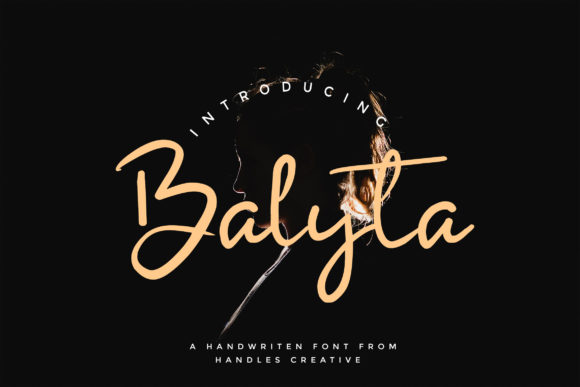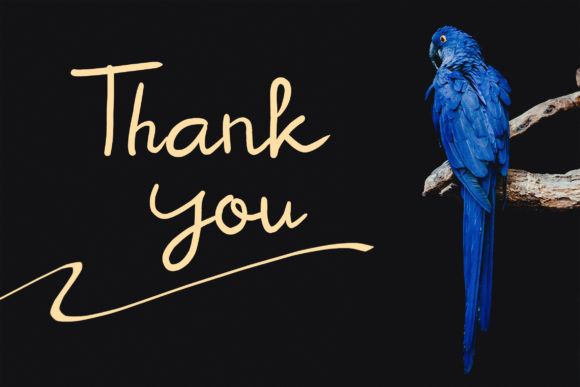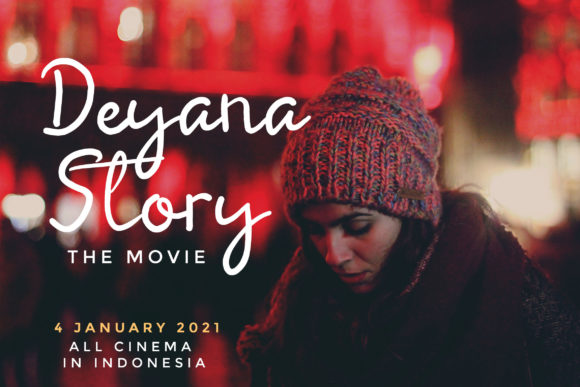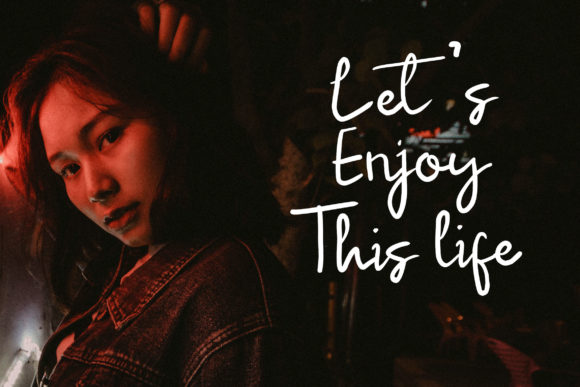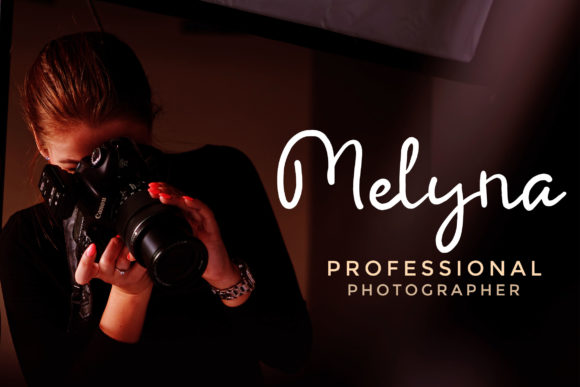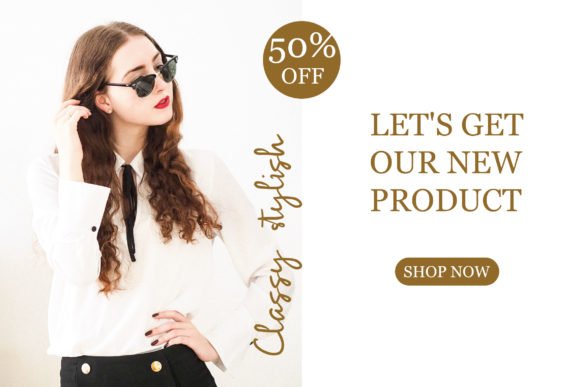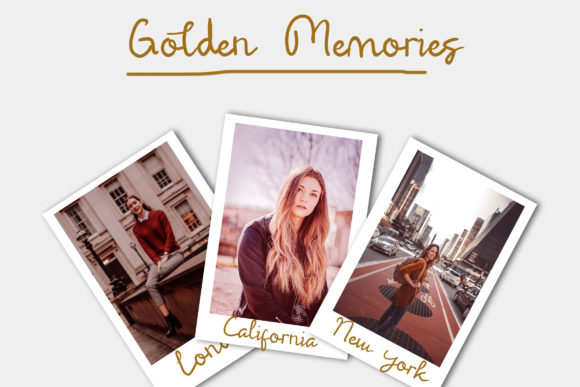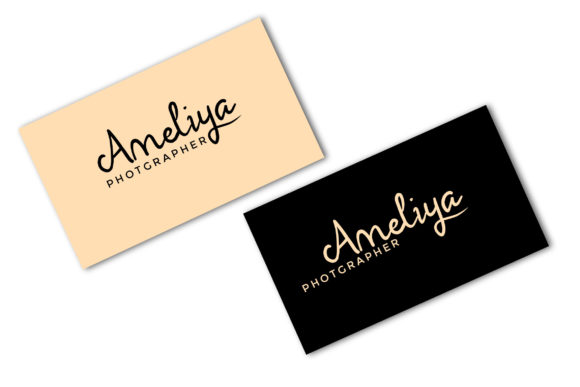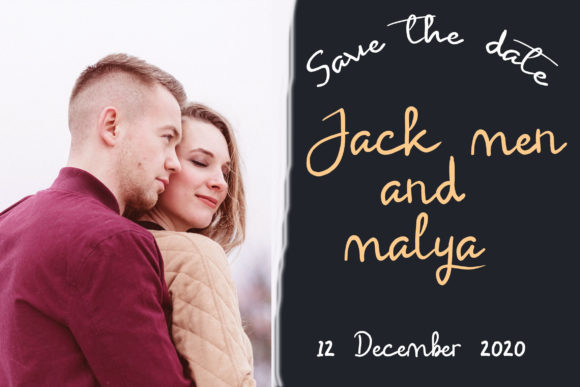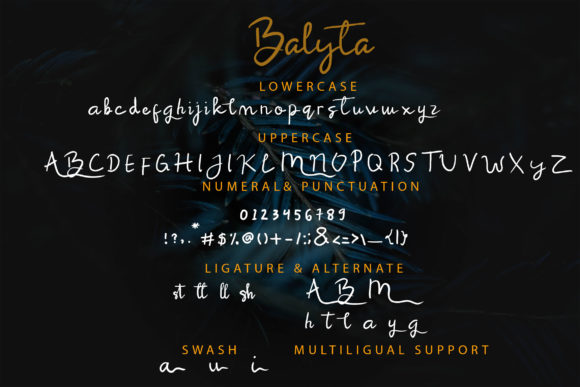
Balyta Font
About Balyta Font
Balyta is a charming and friendly handwritten font that exudes a sweet and approachable vibe. With its natural and unique style, Balyta is an excellent choice for a wide range of design projects.
The natural flow and handcrafted feel of Balyta’s letterforms give it an authentic and personal touch. The strokes are graceful and organic, creating a sense of warmth and friendliness. This makes Balyta perfect for designs that aim to create a personal connection or evoke a welcoming atmosphere.
The versatility of Balyta is one of its standout features. It can be used in various design contexts, including branding, packaging, social media graphics, quotes, invitations, and more. Whether you’re working on a logo for a small business or designing personalized stationery, Balyta adapts effortlessly to different styles and themes.
Balyta’s unique style adds a touch of personality to your designs. Its hand-drawn aesthetic sets it apart from more generic fonts, giving your projects a distinctive and memorable look. The playful and friendly nature of Balyta makes it particularly well-suited for projects that require a touch of whimsy or a lighthearted feel.
When used in branding projects, Balyta can help convey a sense of approachability and friendliness. Its inviting and sweet style can resonate well with audiences and create a positive impression. From logos to packaging, Balyta adds a touch of personality and warmth to your brand identity.
In summary, Balyta is a sweet and friendly handwritten font that brings a natural and unique style to your designs. Its versatility allows it to adapt to a variety of projects, and its handcrafted charm adds a personal touch to any design. Whether you’re working on branding, social media graphics, or invitations, Balyta will infuse your designs with a warm and welcoming presence.